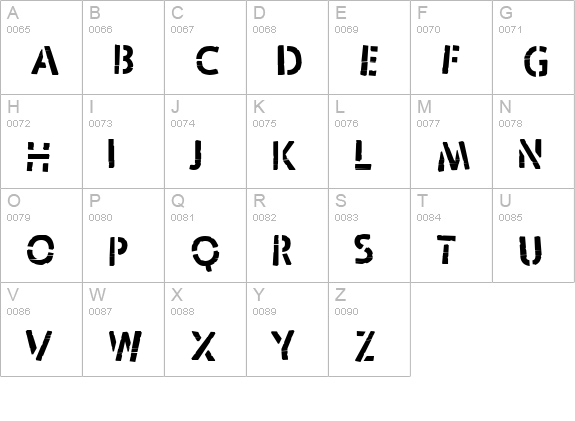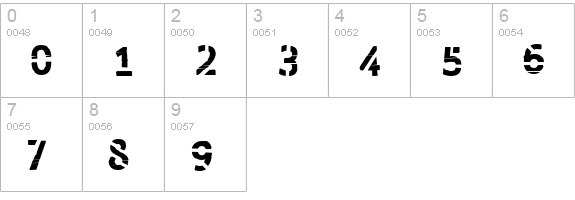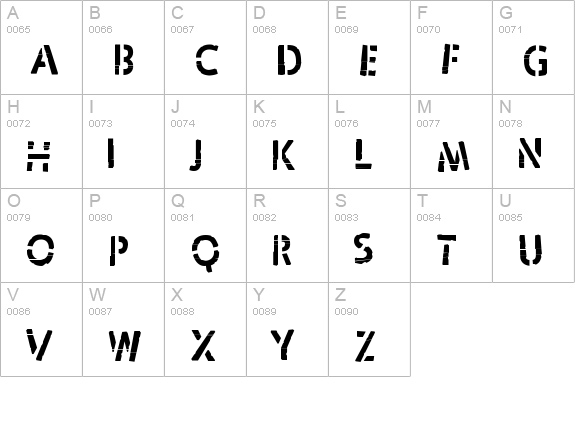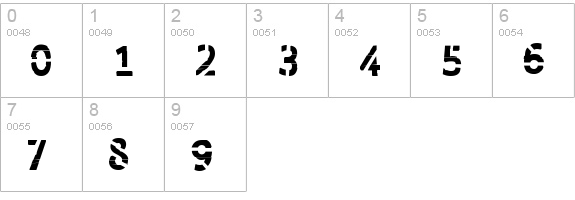
Skraype Font Details
Introducing Skraype font, a versatile and stylish typeface that adds a touch of modern flair to any design project. With its bold lines and sleek curves, Skraype is perfect for everything from logos to posters to social media graphics. This eye-catching font is sure to make a statement and grab attention. The best part about Skraype font? It's completely free! That's right, you can download this amazing font at FontsMarket.com without spending a dime. Whether you're a professional designer looking for a new addition to your font collection or a hobbyist seeking to elevate your projects, Skraype is the perfect choice. Don't miss out on this fantastic opportunity to enhance your designs with Skraype font. Download it today and start creating stunning visuals that will leave a lasting impression.